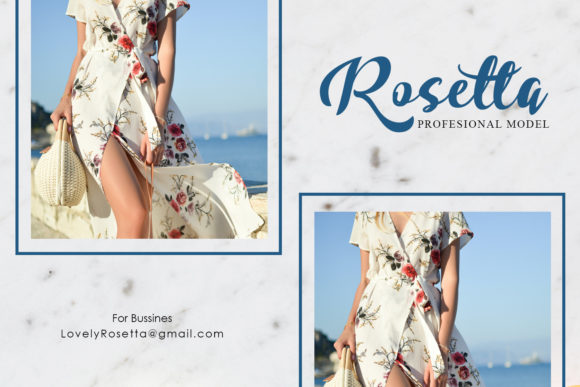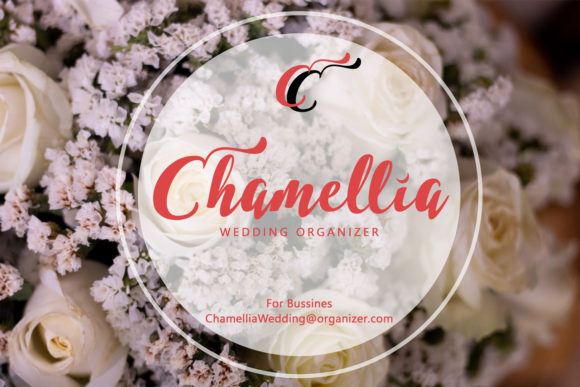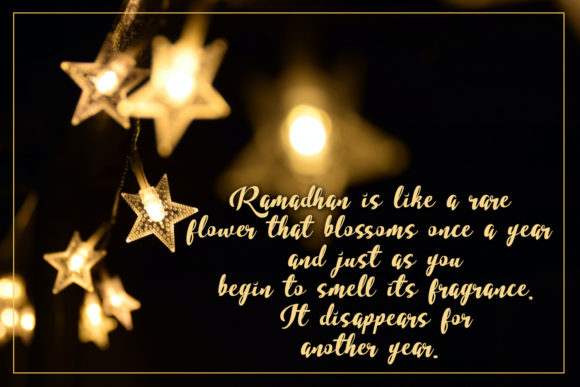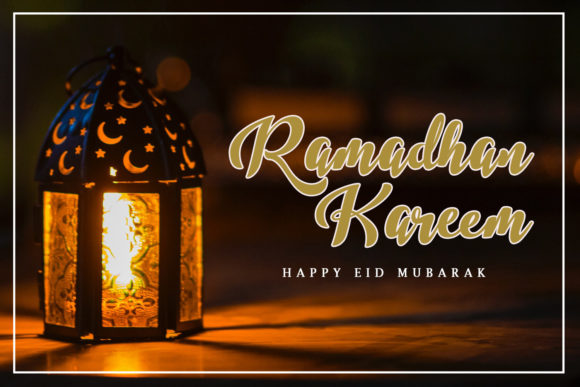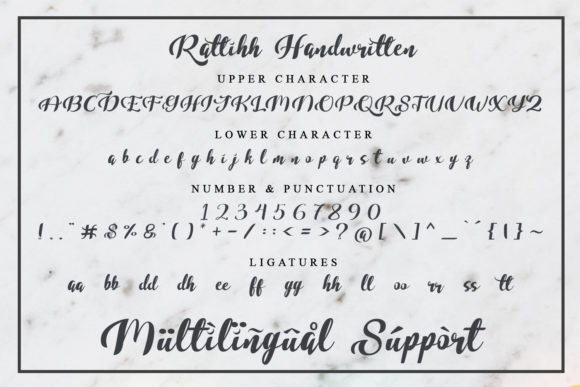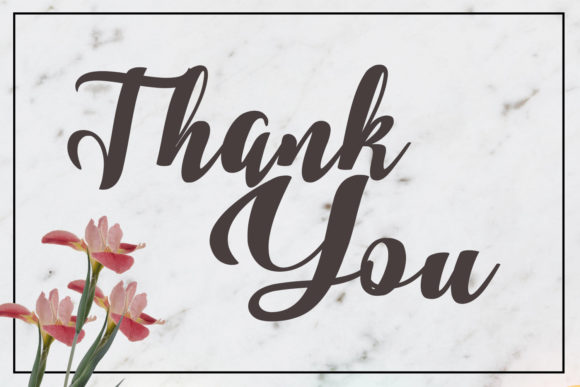
Introduction to Rattihh Script Font
Rattihh Script feels both elegant and flowing.
It looks stunning on wedding invitations, thank you cards, quotes, greeting cards, logos, business cards and every other design which needs a personalized touch Add it confidently to your projects, and you will love the results.
Key Features of Rattihh Script Font
Why Choose Rattihh Script Font?
Rattihh Script Font offers exceptional quality and versatility, making it a valuable addition to your design toolkit. Whether you’re creating for personal projects or commercial use, Rattihh Script Font delivers professional results.